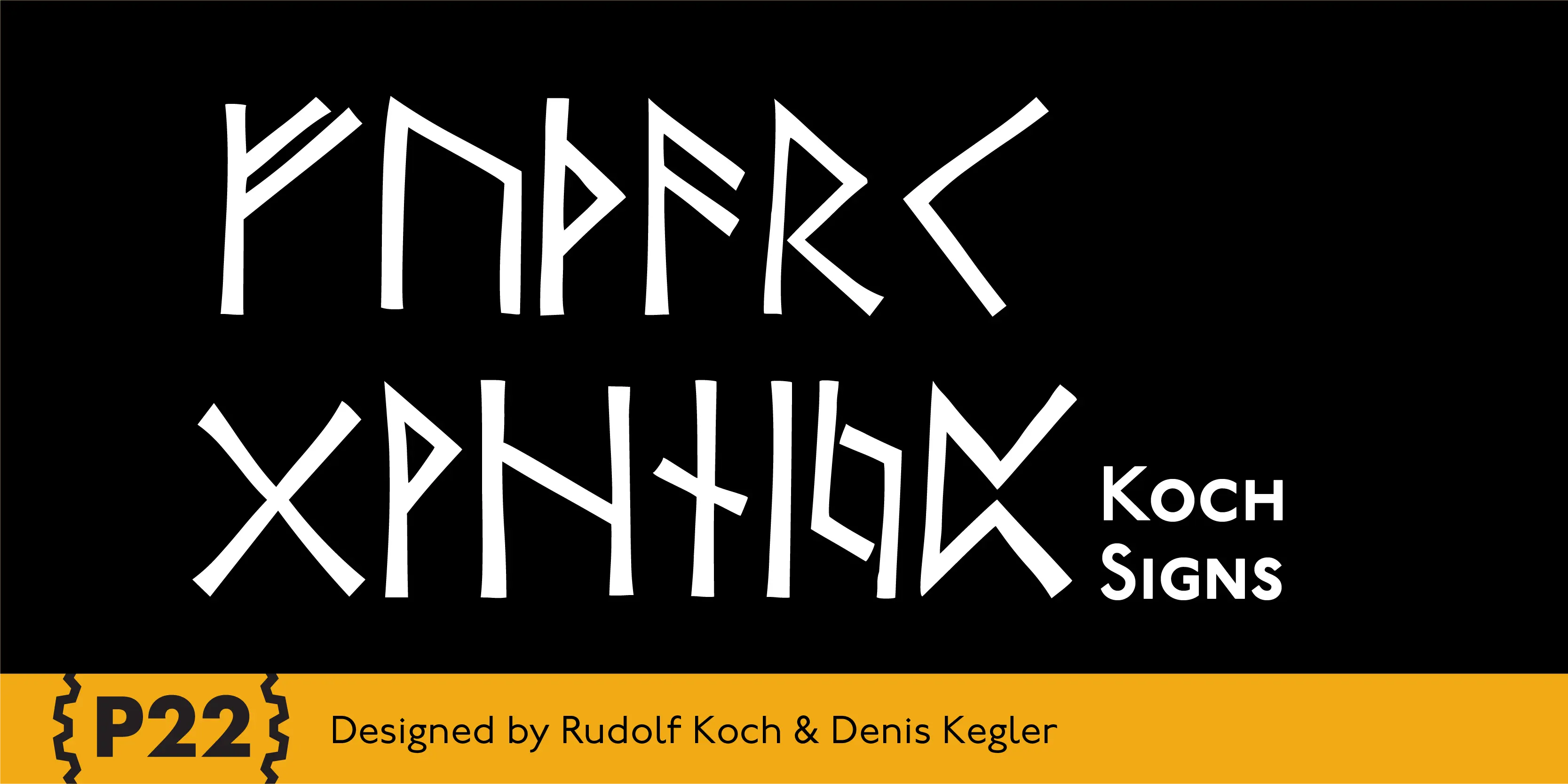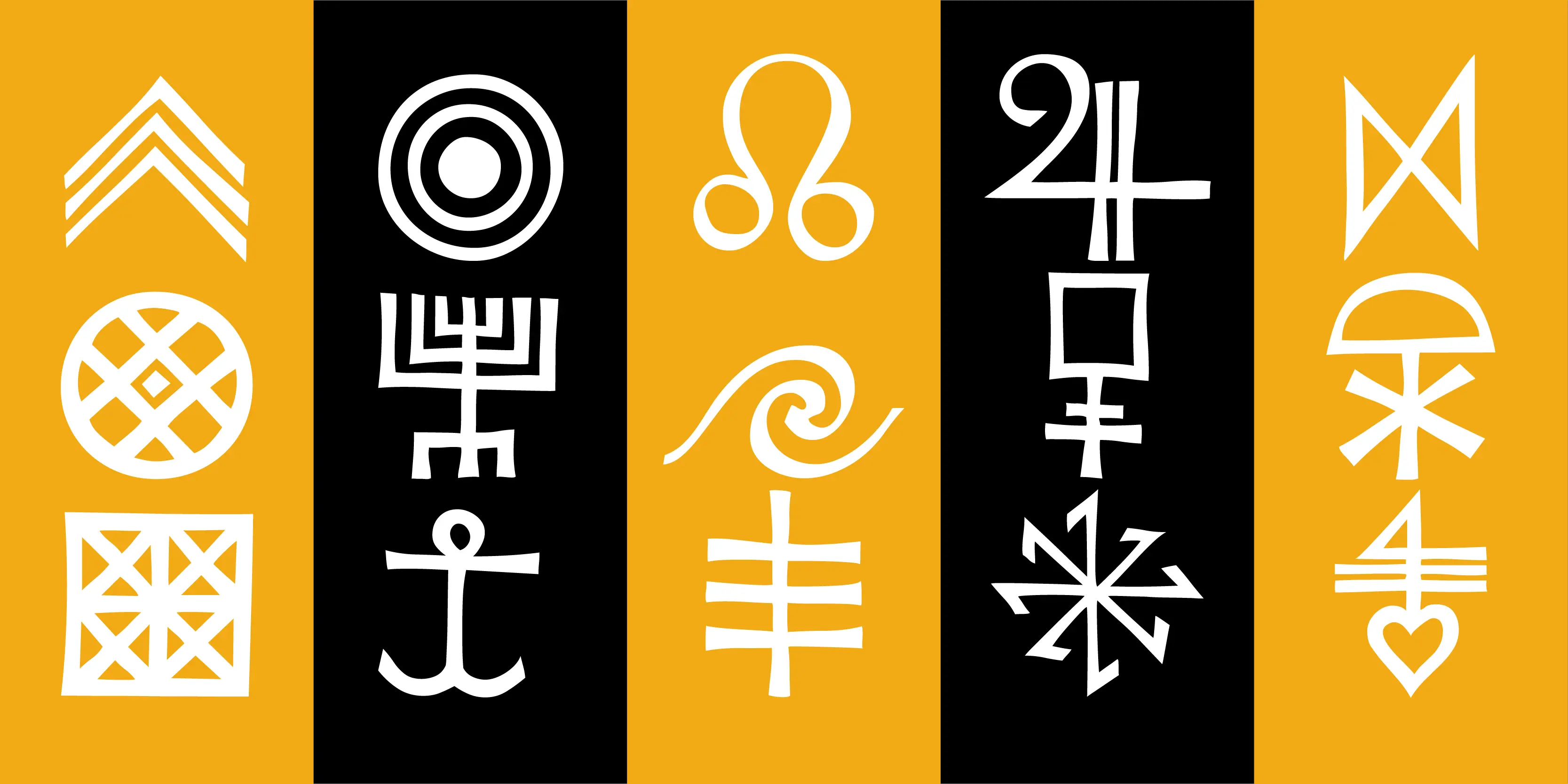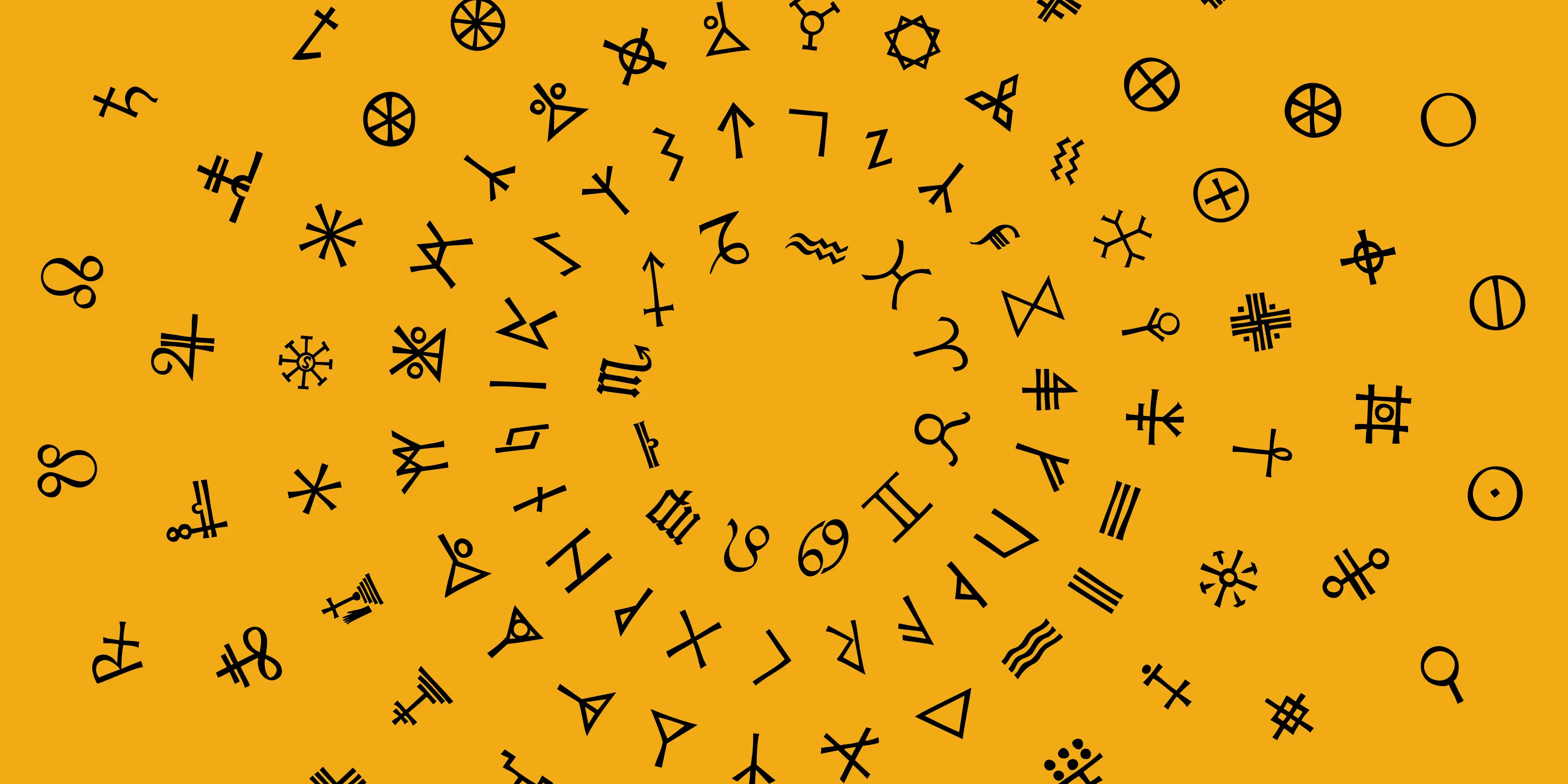
Koch Signs Font Family
Koch Signs
P22 Koch Signs is a reproduction of over 350 signs from German typographer Rudolf Koch’s The Book of Signs. The symbols include Astrological, Christian, Medieval, and Runic iconography. These could be used beyond their literal meaning. They could be used as decorations, patterns, embellishments, or any other kind of opportunity to make a typographic statement.